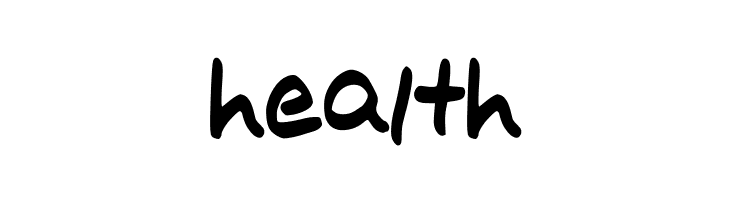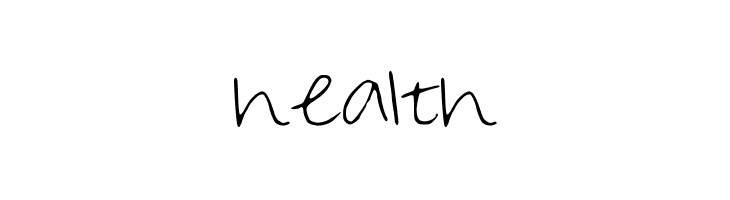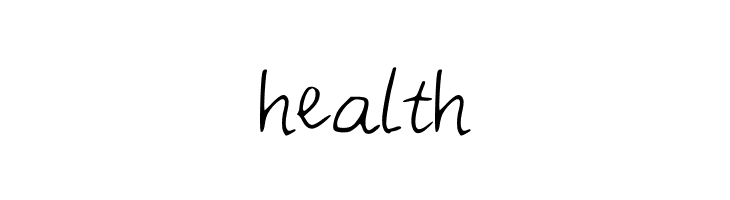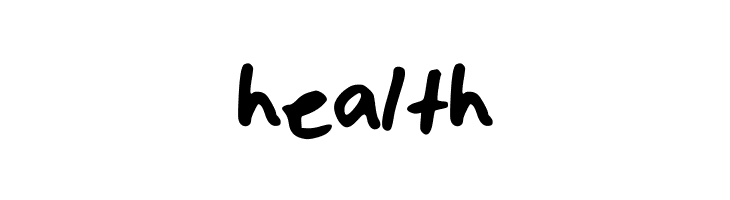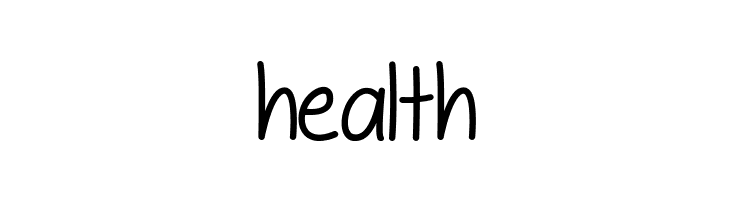
A playful, handwritten font with smooth, rounded strokes and a casual feel.
A casual, handwritten font with a playful and informal style.
Playful handwritten script font.
A playful, handwritten font with a casual and whimsical style.